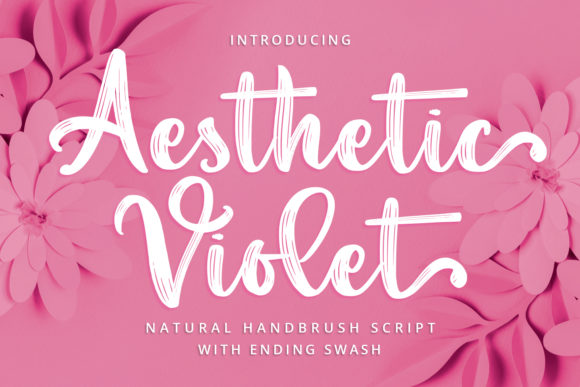
Unleash the Beauty of Expression with Aesthetic Violet Font: A Handwritten Masterpiece for Your Creative Endeavors
Journey into the realm of breathtaking elegance with Aesthetic Violet Font, an exquisite handwritten script that will elevate your creative projects to new heights of artistry. Immerse yourself in the font's captivating flow and graceful curves, crafted with an enchanting touch that adds a touch of timeless charm to your designs.
Experience the Allure of Uniqueness:
Aesthetic Violet Font stands out from the crowd with its incredibly distinct style, a harmonious blend of classic beauty and modern flair. Each character dances across the page with an unmatched grace, inviting you to explore the endless possibilities of creativity. Let your imagination soar and watch as your designs transform into masterpieces adorned with the elegance of Aesthetic Violet.
Ignite Your Creative Passion:
With Aesthetic Violet Font as your creative companion, discover a world of endless possibilities. Whether you're a seasoned designer or just starting your creative journey, this font will ignite your passion and inspire you to create designs that resonate with your audience. From heartfelt invitations to captivating logos, Aesthetic Violet adds a touch of sophistication that leaves a lasting impression.
The Perfect Font for Silhouette Designs:
Elevate your silhouette designs with the magic of Aesthetic Violet Font. Its flowing lines and delicate details bring an unmatched charm to your creations, transforming them into captivating works of art. Let your imagination run wild as you craft intricate patterns, inspiring quotes, or personalized gifts that capture the essence of individuality.
Embrace the Timeless Charm:
Aesthetic Violet Font transcends the boundaries of time, embodying a classic elegance that never fades. Its timeless style ensures that your designs will stand the test of time, captivating audiences with its enduring beauty. Whether you're creating branding materials, social media graphics, or personal projects, Aesthetic Violet adds a touch of sophistication that speaks volumes.